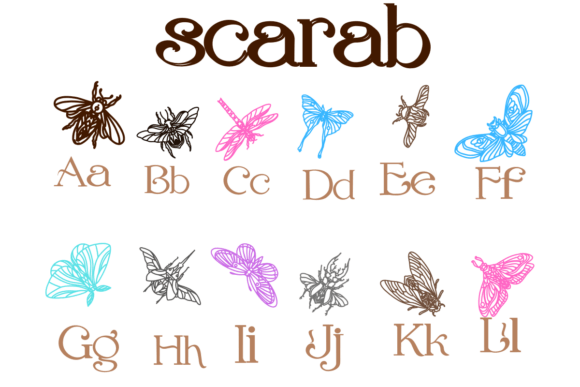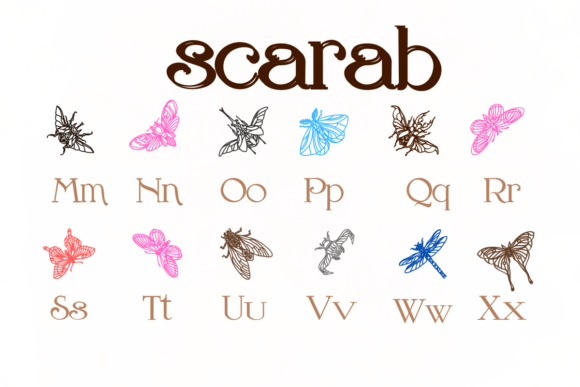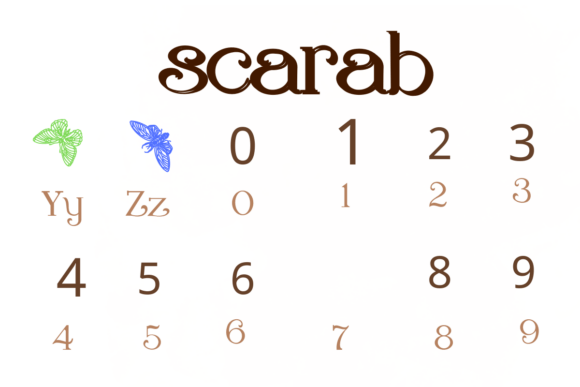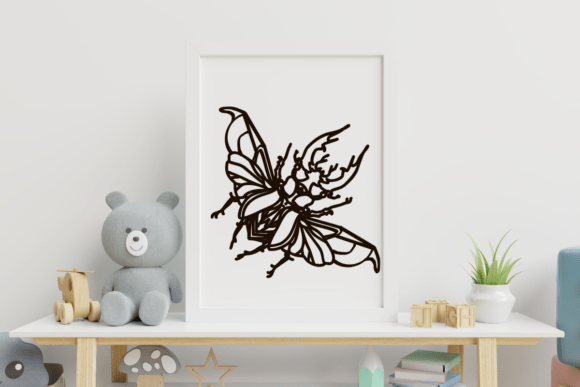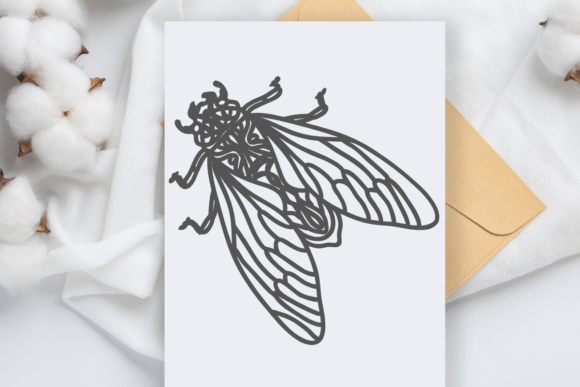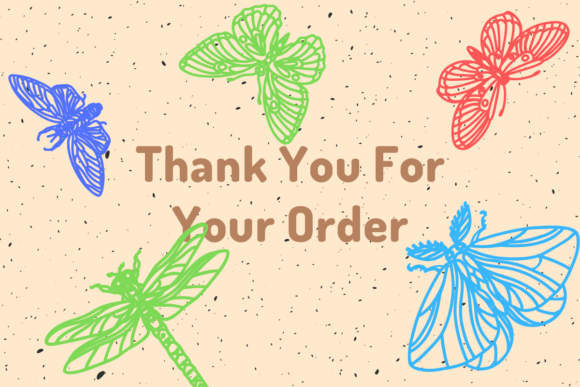
Introduction to Scarab Font
Have you ever been working on a creative project, pouring over design concepts and typography, only to feel like something’s missing? A spark of inspiration that will elevate your design from ordinary to extraordinary? For designers, that missing piece often lies in the details – a unique touch that sets their work apart from the rest.
Enter the Scarab Font, a captivating dingbat font that brings the beauty of nature into your creative world. With its intricate insect illustrations, this high-quality font is perfect for adding a touch of whimsy and wonder to your designs.
Whether you’re working on a logo, educational materials, or botanical designs, the Scarab Font offers a valuable resource for designers looking to add some natural charm to their work. And the best part? It’s available for free download, complete with transparent backgrounds and intricate details that will make your designs truly stand out.
Key Features of Scarab Font
- Features a unique, intricate design with a transparent background, ideal for use in various contexts.
- Available in a single size, making it easy to use in various creative projects.
- Designed with a high resolution (300 DPI) for crisp and clear display.
- Perfect for designers looking for a unique, creative font to elevate their projects.
Honest Review: Scarab Font
As a designer, I’m always on the lookout for high-quality design resources to elevate my creative projects. The Scarab Font caught my eye with its unique, bold style.
- ✨ The font’s distinctive design makes it perfect for adding a touch of elegance to any project.
- ✨ The font is highly customizable, with options for transparent background and scalable vector graphics (SVG) files.
- ⚠️ The font may not be suitable for all design projects, particularly those requiring a more subtle or minimalist aesthetic.
- ⚠️ Some users may find the font’s bold style overwhelming in certain contexts.
Overall, I’m impressed with the Scarab Font and its potential to elevate creative projects. While it may not be the best fit for every design scenario, its unique style and customization options make it a valuable resource for designers looking to add some visual interest to their work.
Tips for Getting the Most Out of Scarab Font
Experiment with different font sizes, colors, and styles to find the perfect combination for your design. Use the font in conjunction with other design resources to create a cohesive and visually appealing design. Don’t be afraid to try new things and push the boundaries of your creativity.
The Scarab Font is perfect for a variety of creative projects, including logos, branding, and marketing materials. Use the font to create eye-catching headlines, promotional materials, or website content. The font’s unique design makes it ideal for any project that requires a touch of sophistication and elegance.